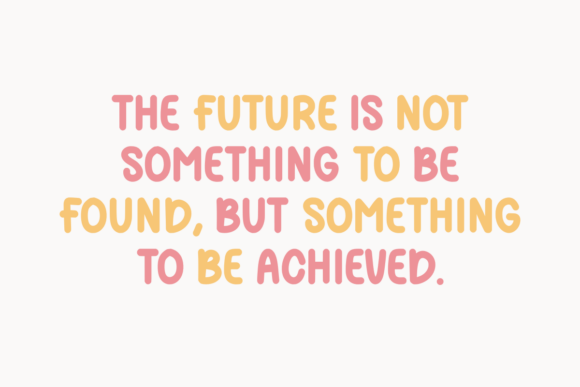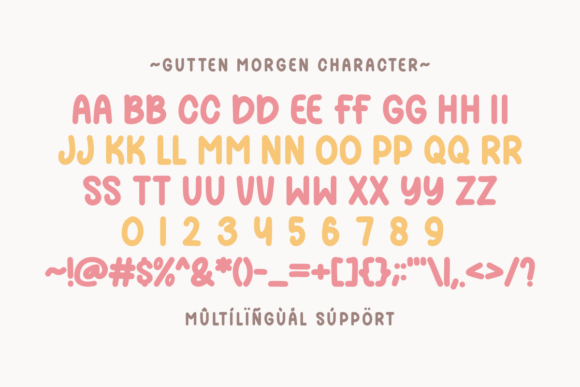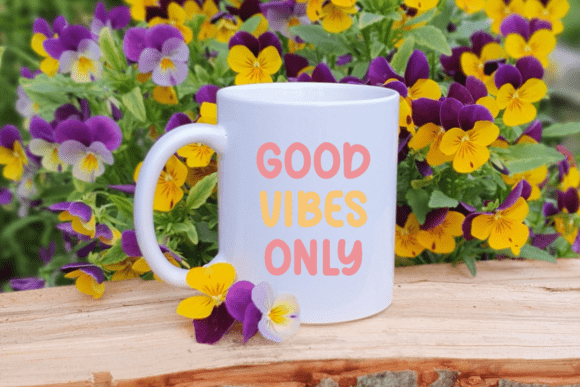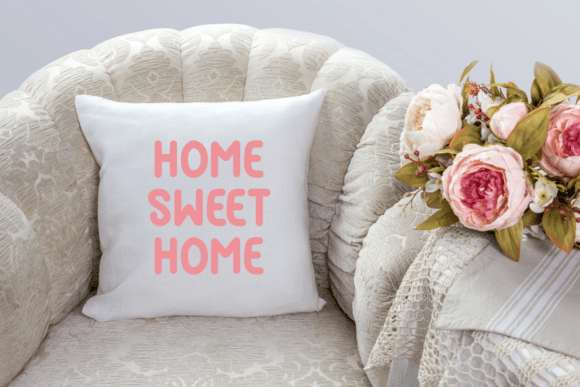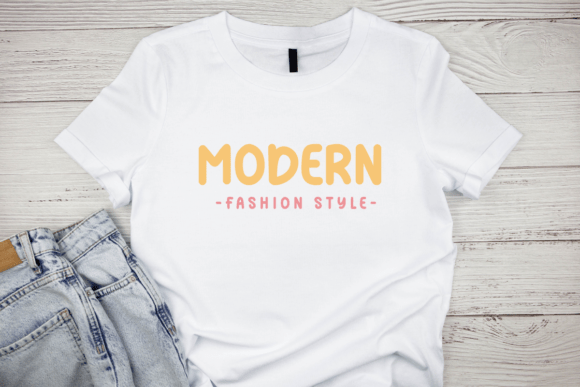
Designing from the Heart
Have you ever stumbled upon a font that makes you feel all the feels? For designers, this can be a game-changer. It’s that moment when a particular font clicks, and your creative vision starts to take shape. For me, it was when I discovered the enchanting Gutten Morgen Font. This charming handwriting font is more than just a pretty face – it’s a key to unlocking the perfect aesthetic for your next project.
Gutten Morgen Font is a masterful blend of clean lines, smooth curves, and a touch of whimsy. Whether you’re crafting romantic designs, wedding invitations, or heartfelt branding, this font is sure to captivate your audience. Its versatility makes it a valuable asset for designers, allowing them to infuse their projects with a modern aesthetic and a dash of playful warmth.
Gutten Morgen Font Key Features
- Font Family: Gutten Morgen
- Unique Characteristics: Features a unique, handwritten style with a mix of elegant and casual elements, making it suitable for a variety of applications, including invitations, greeting cards, and advertising materials
Gutten Morgen Font Review
First impressions of Gutten Morgen Font are quite positive. The design is clean, modern, and features an interesting blend of Scandinavian minimalism and a touch of playfulness. ✨ The font’s curves are smooth, and the letterforms are well-balanced.
The font’s versatility is also a major advantage. It can be used for a wide range of applications, from body text to display headings, making it a great choice for designers who need a reliable workhorse. ✨ The font’s legibility is excellent, even at small sizes.
Limits and Challenges
While Gutten Morgen Font is an excellent choice for many projects, there are some limitations to consider. ⚠️ One major drawback is the lack of italic and bold weights. This can make it difficult to create visual hierarchy in designs that require a clear distinction between headings and body text.
Another issue is the font’s limited support for languages other than English and a few European languages. ⚠️ This can be a major problem for designers who need to work with clients who speak other languages.
Overall, I’m impressed with Gutten Morgen Font’s clean design and versatility. While it has some limitations, it’s a solid choice for designers who need a reliable, modern font. With the addition of italic and bold weights, and improved language support, Gutten Morgen Font could be a top contender in the font market.
- Modern, Scandinavian-inspired design
- Excellent legibility at small sizes
- Highly versatile, suitable for body text and display headings
- Limited support for languages other than English and a few European languages
- No italic and bold weights
Gutten Morgen Font: A Practical Application Guide
Tips for Getting the Most Out of Gutten Morgen Font
To get the most out of Gutten Morgen Font, try pairing it with bold or italic fonts for contrast, and use it for headings or titles to create visual interest.
Use Gutten Morgen Font for a variety of projects, including social media graphics, posters, and business cards.